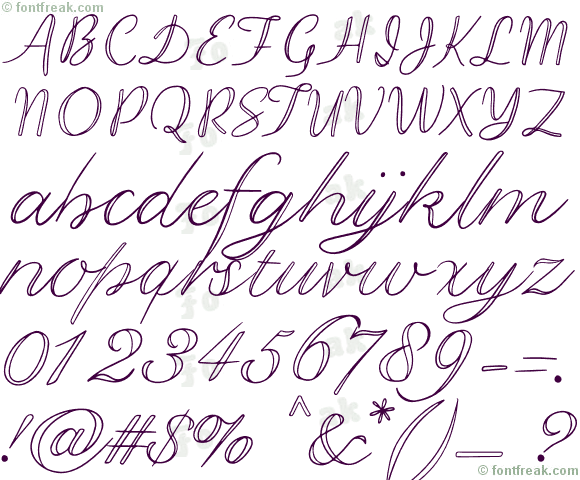
Gregson
About Gregson
The Gregson font, designed by Dominique Demetz, is a captivating display typeface that embodies elegance and sophistication. This script font features a unique blend of fluid strokes and graceful curves, making it an excellent choice for projects that require a touch of creativity and flair. With its moderate stroke weight and contrasting line thickness, Gregson showcases a beautiful balance between legibility and artistic expression. The spacing is thoughtfully crafted, allowing for seamless readability while enhancing its decorative charm.
This font is particularly well-suited for various applications, including wedding invitations, where its romantic style can create an unforgettable first impression. Additionally, it works wonderfully for branding projects, such as logos for boutique shops or artisanal products, capturing attention with its distinctive personality. Restaurant menus can also benefit from Gregson’s elegant appearance, helping to elevate the dining experience with an inviting aesthetic. Content creators looking to add a unique touch to their social media graphics or promotional materials will find this font to be an excellent asset as well.
What sets the Gregson font apart is its ability to merge artistry with functionality. Whether you're crafting a heartfelt invitation or a stylish logo, this font brings a refined touch that resonates with viewers. With the Gregson font free download available, there's no better time to explore the creative possibilities this typeface offers. Embrace the elegance of Gregson and elevate your design projects with this stunning font.